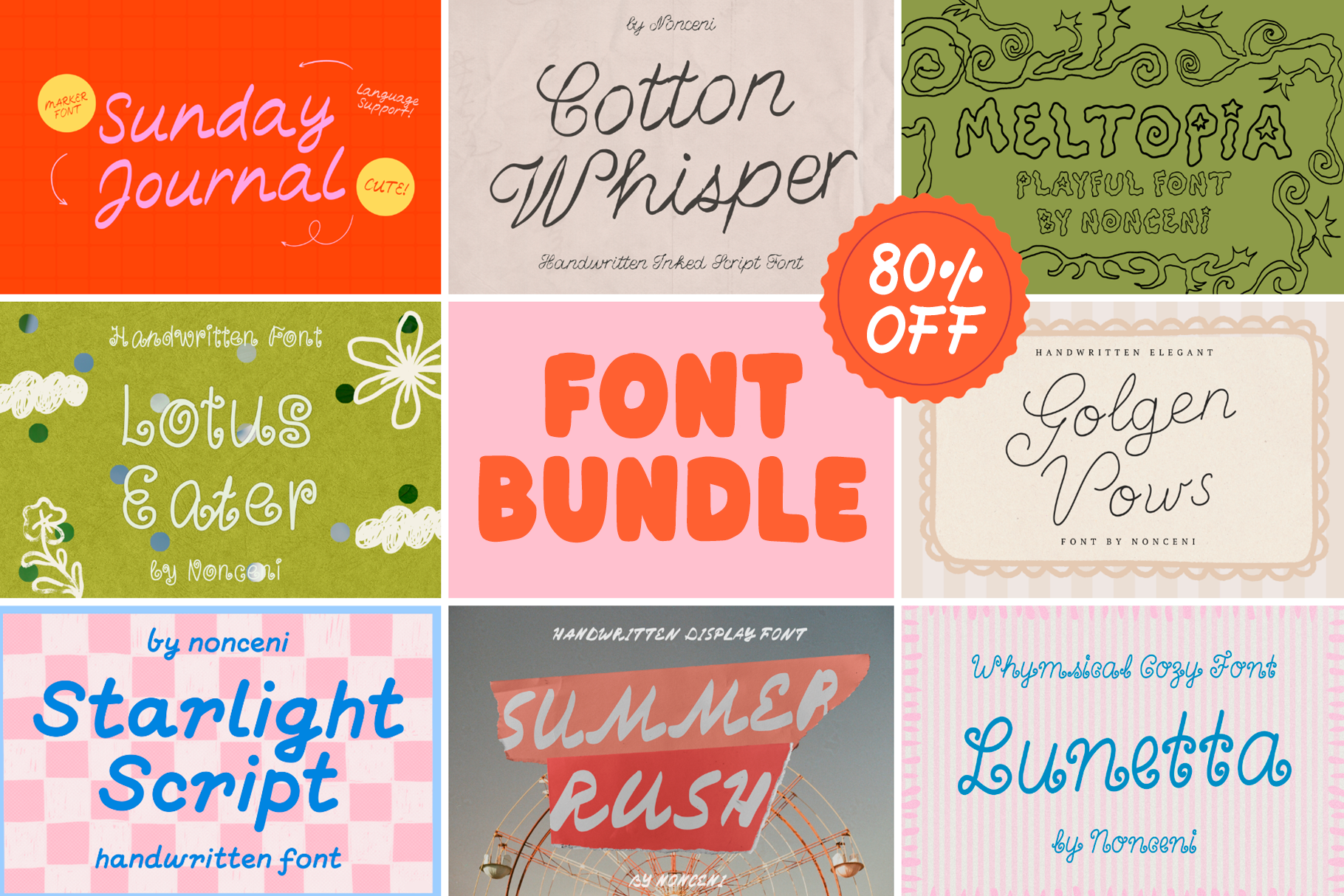
Ultimate Handcrafted Font Bundle
Grab an incredible value collection with this Font Bundle (8 FONTS IN 1!!) by Nonceni, featuring an 80% discount on a curated selection of whimsical, retro, and handcrafted typefaces. From playful display lettering and organic marker scripts to elegant handwritten styles, this bundle equips you with a versatile library of fonts to elevate your branding, social media, and digital design projects.
What’s Included in the Bundle?
Sunday Journal: A cute, casual marker font with authentic handwriting vibes and full language support.
Cotton Whisper: A delicate, flowing handwritten inked script font with a soft, organic feel.
Meltopia: A quirky, playful display font loaded with whimsical character.
Lotus Eater: A fun, hand-drawn decorative font packed with organic charm.
Golden Vows: A graceful, handwritten elegant script perfect for romantic and high-end stationery or wedding.
Starlight Script: A bold, retro-inspired blue script font with a charmingly nostalgic punch.
Summer Rush: A high-energy handwritten display font built for bold statements and travel vibes.
Lunetta: A whimsical, cozy display font with soft, rounded loops.